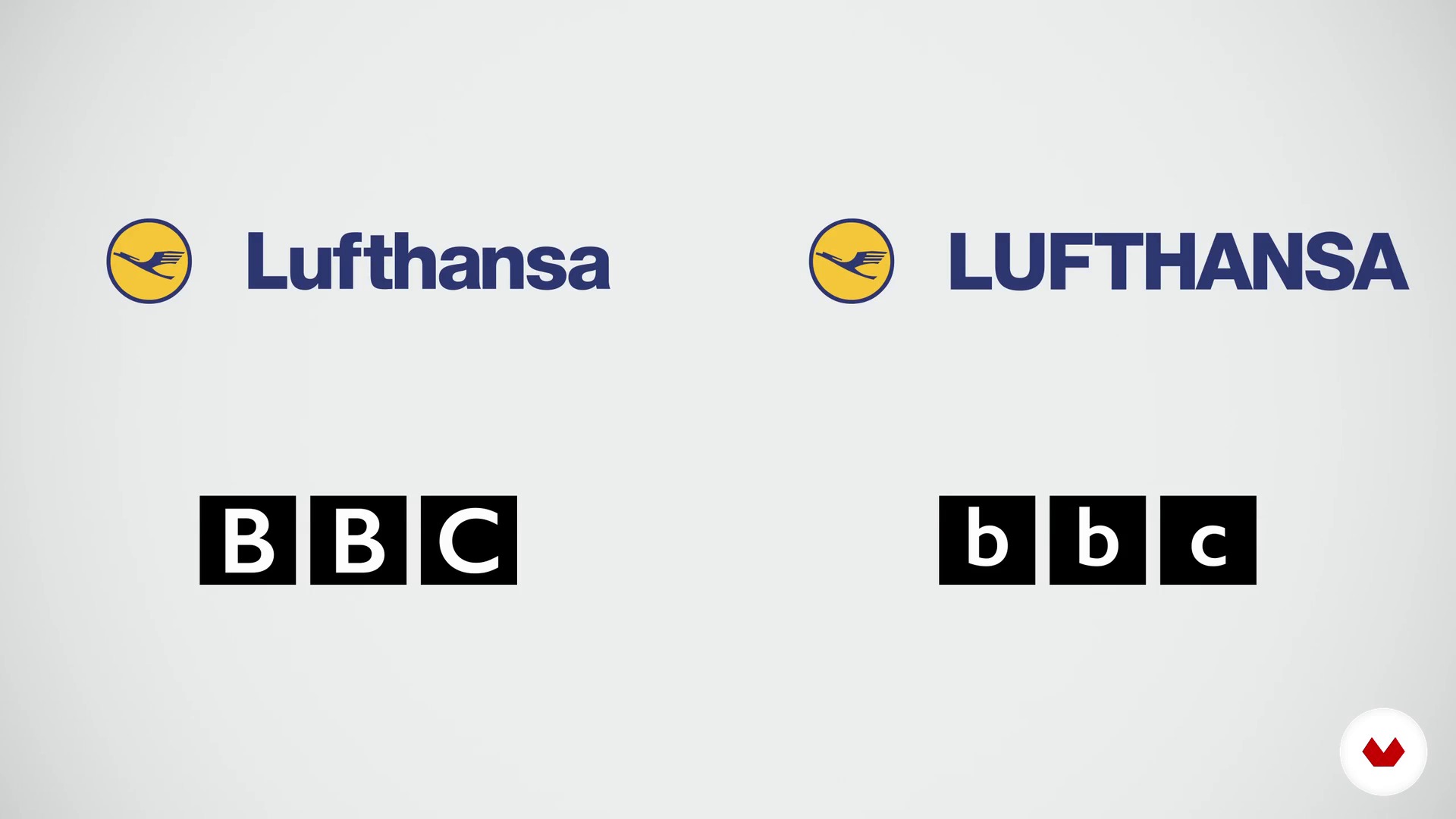
Readability: uppercase and lowercase
About the video: Readability: uppercase and lowercase
“In this lesson, you will see how using common sense, you can get great readability.”
In this video lesson Enric Jardí addresses the topic: Readability: uppercase and lowercase, which is part of the Domestika online course: How to Choose Fonts. Discover what each type of font tells us and how to choose the right one for your project.
“Readability, upper and lower case Just for working with typography, that is, with letters already made, in principle readability is less of an issue. If the letters read well, when we put them they will read well. Even so, there are some letters that read better than others. Let's see where we can find these problems. Of the fonts that we have, most of them, as long as they are reasonably shaped, they all read the same. Don't worry about whether one reads better than the other. In general, they all work the same. Even so, you will find letters with special characteristics. For example, such...”